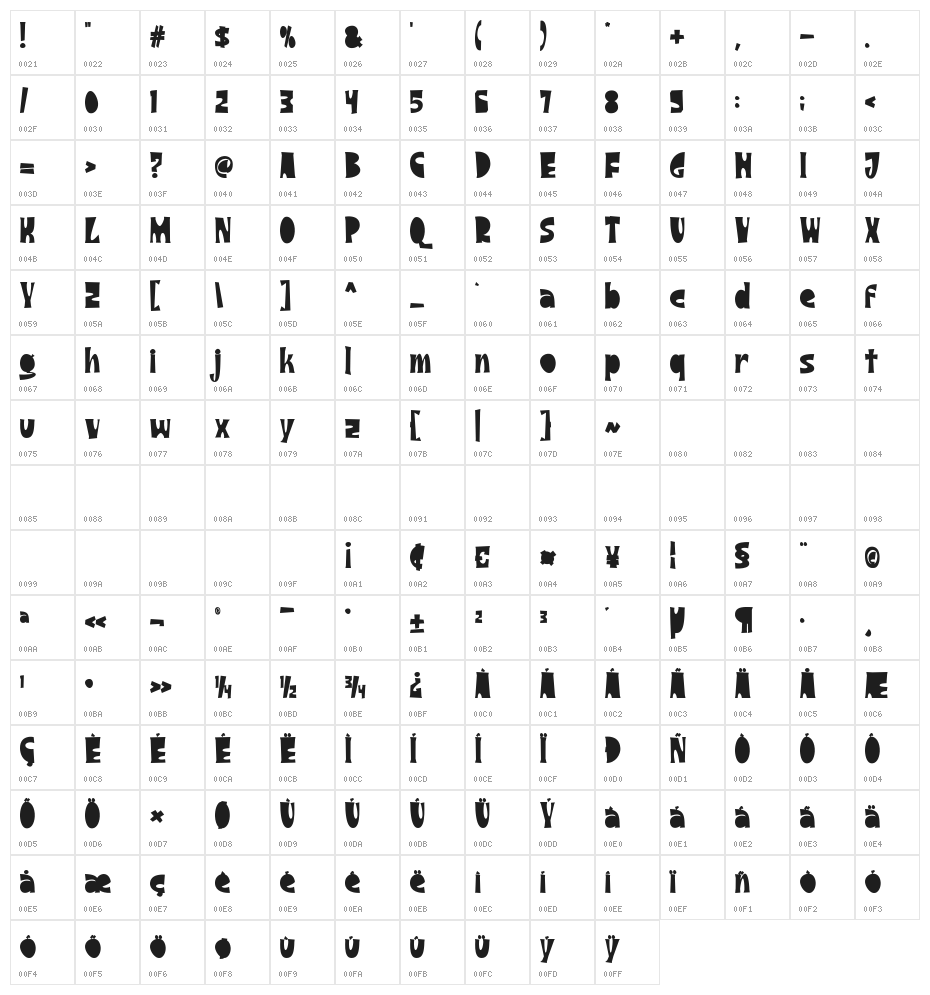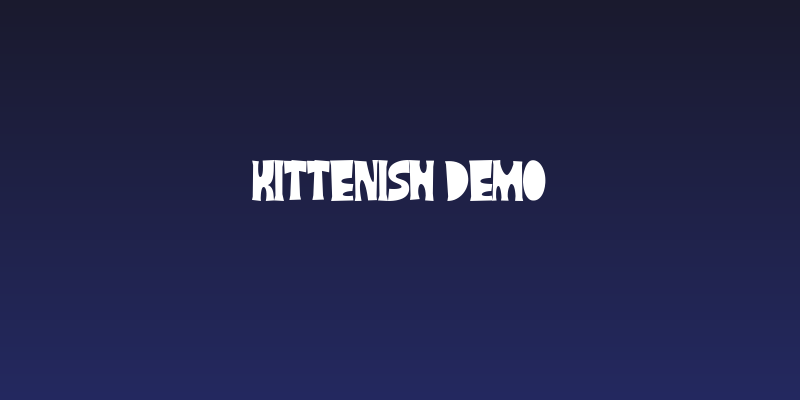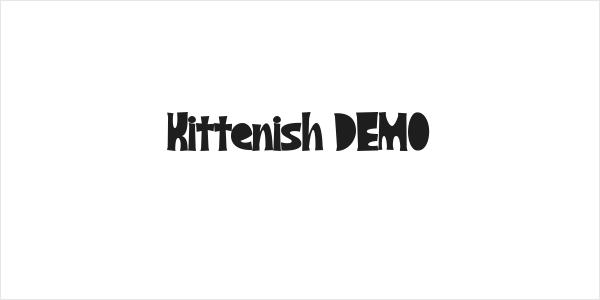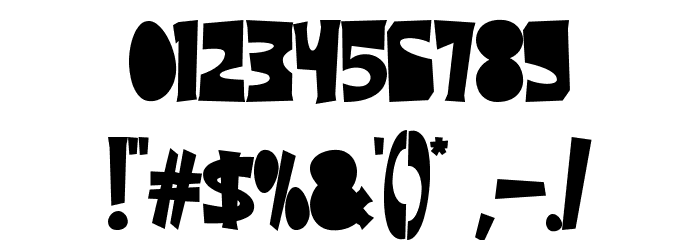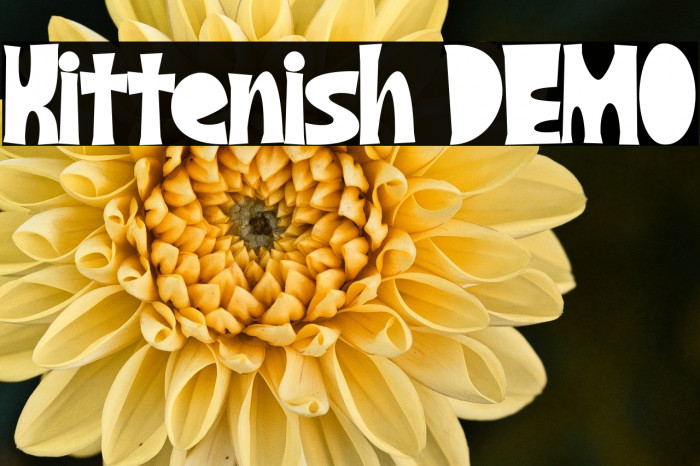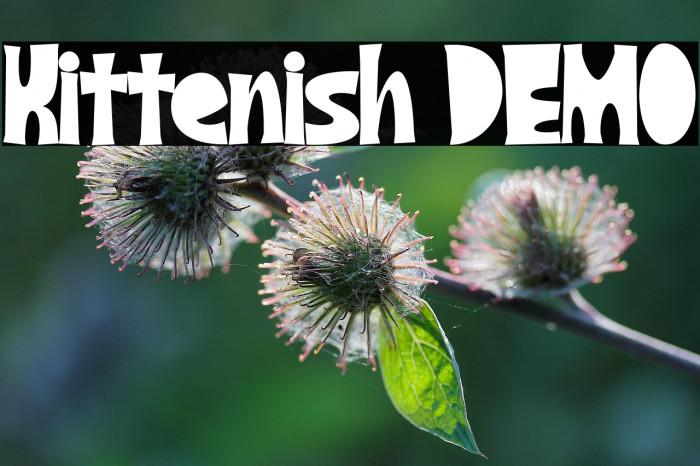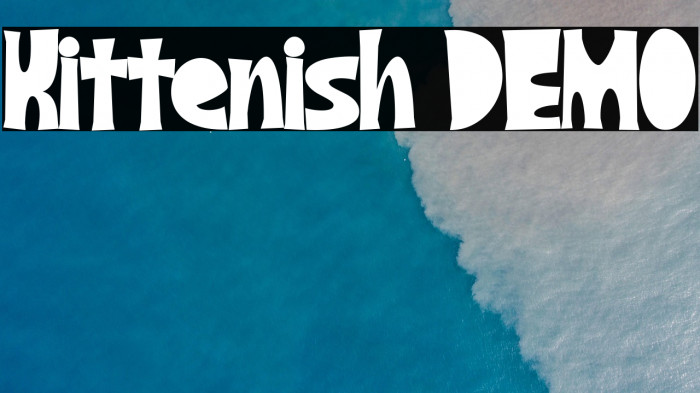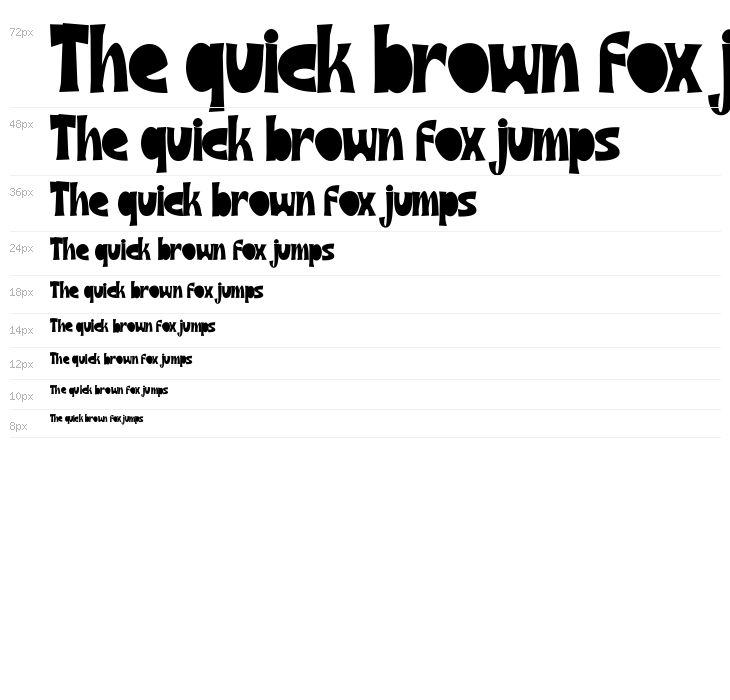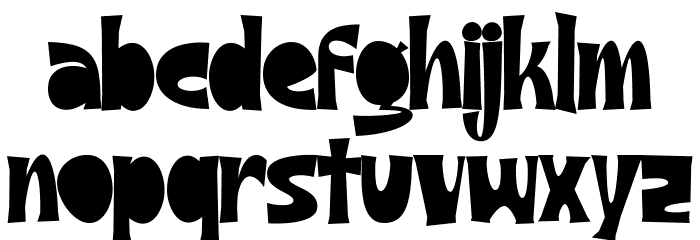
Kittenish DEMO Font
Kittenish DEMO Description
This playful and bold font features exaggerated curves and thick strokes, creating a whimsical and eye-catching appearance. The characters are uniquely stylized with a sense of movement and energy, making it ideal for creative projects. The uppercase and lowercase letters maintain a consistent design, with rounded edges and a slightly condensed form. Numbers and special characters follow the same playful style, ensuring a cohesive look across all text elements. This font's distinct personality makes it perfect for projects that require a fun and engaging visual impact.
| Proposed Projects | Great for children's books, playful branding, posters, and any design needing a whimsical touch. |